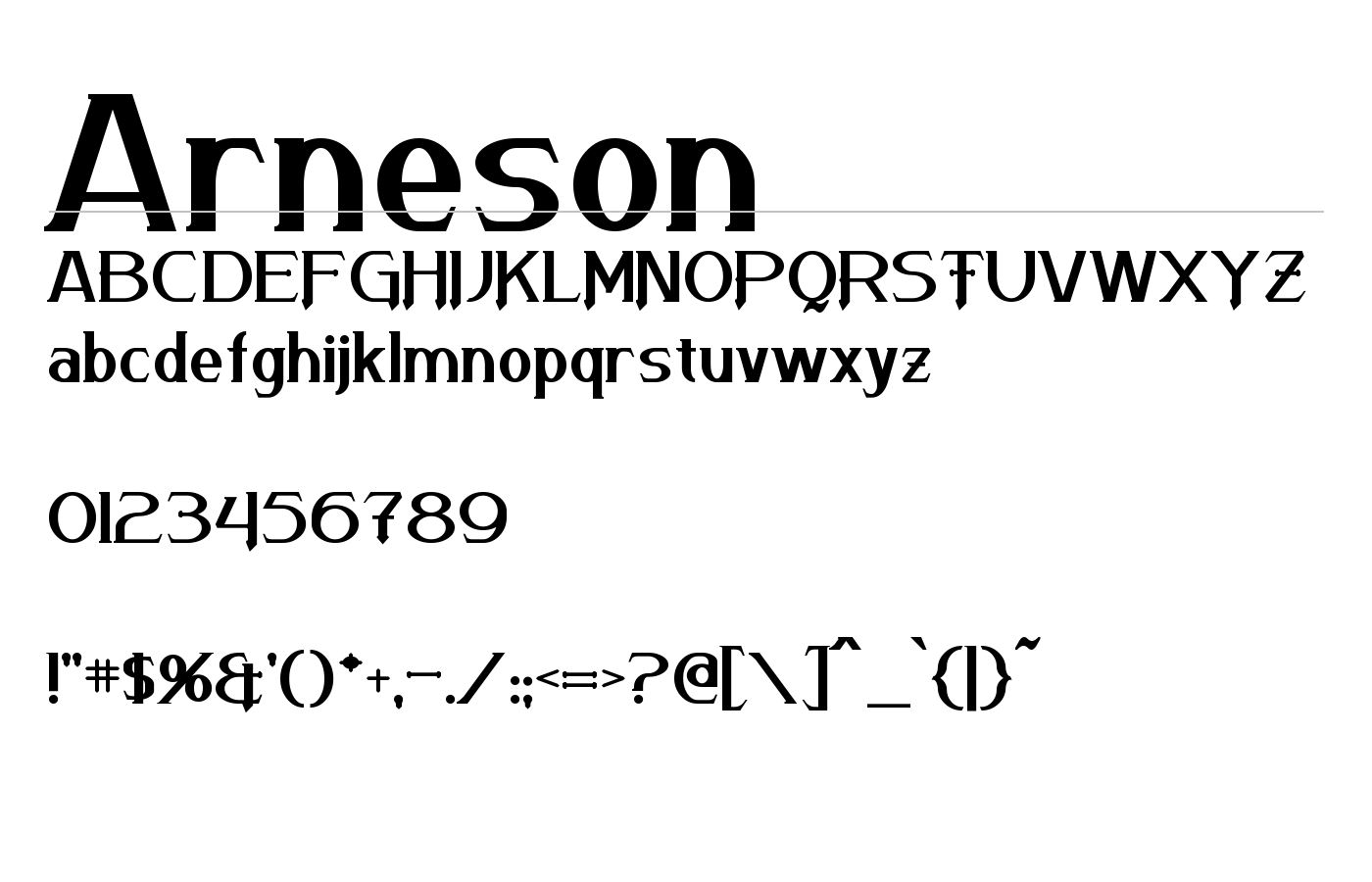
Arneson is a serif font with a unique blend of classic and modern elements, featuring sharp, high-contrast strokes and pointed, bracketed serifs that give it a distinctive, edgy character. Its moderate width and medium x-height create a balanced and readable texture, while quirky details like the unusual terminal shapes add personality, making it ideal for creative branding, editorial headlines, or display use where a mix of elegance and flair is desired. This font works well when you want to convey sophistication with a touch of unconventional style.
Arneson Font